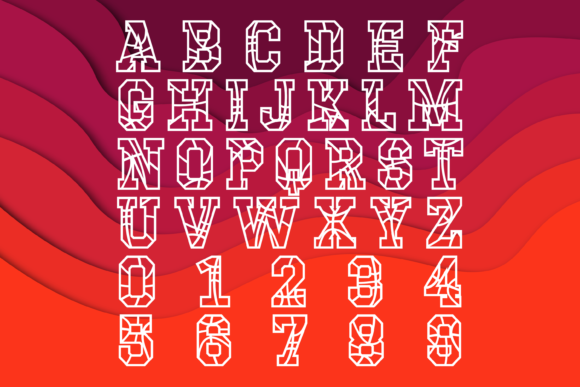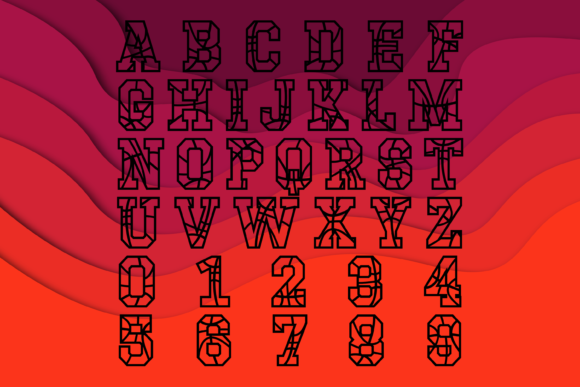
Introduction to Slam Dunk Font Font
Fonts play a crucial role in design, and the Slam Dunk Font font is a typeface that brings both character and versatility to any project. Whether you’re working on a branding project, a website, or a print design, the Slam Dunk Font font offers a unique style that can elevate your work.
Slam Dunk is an incredibly cool font.
It is ideal for your sports-related design ideas Simple but with a strong visual effect, this font will instantly make your creation more appealing than any others.
Key Features of Slam Dunk Font Font
Why Choose Slam Dunk Font Font?
The Slam Dunk Font font is more than just a typeface – it’s a design tool that helps you communicate your message with style and clarity. Its unique character set and versatile design make it suitable for a wide range of applications, from elegant invitations to bold headlines.
With its carefully crafted letterforms and balanced proportions, the Slam Dunk Font font ensures readability and visual appeal across all mediums.
What makes Slam Dunk Font font special?
The Slam Dunk Font font stands out with its unique design, exceptional readability, and versatility across various design applications.